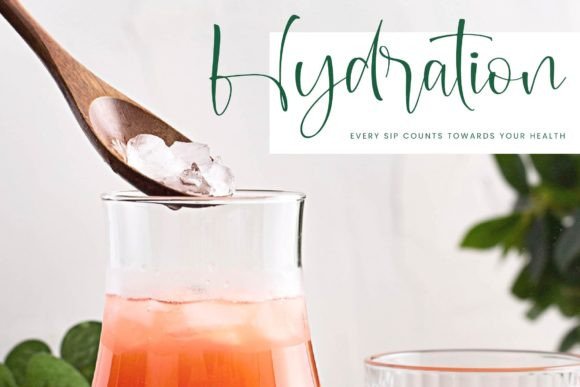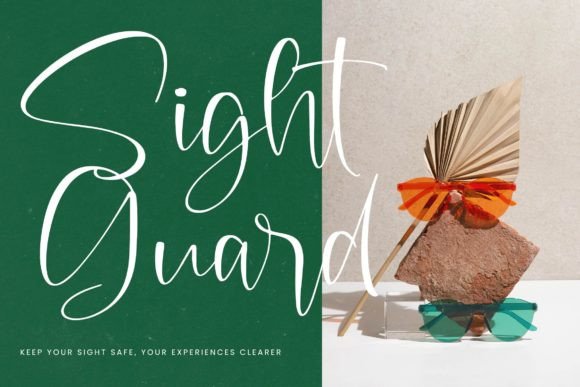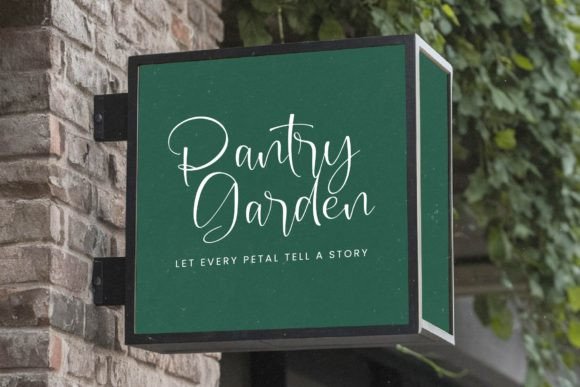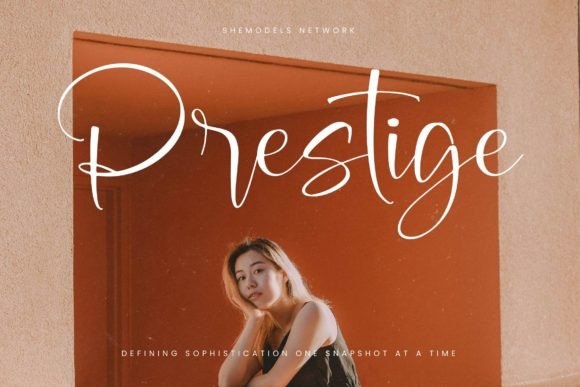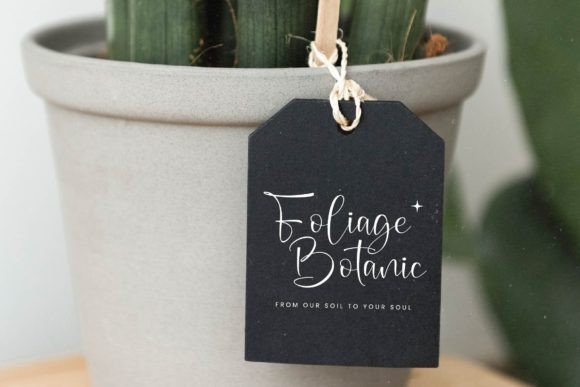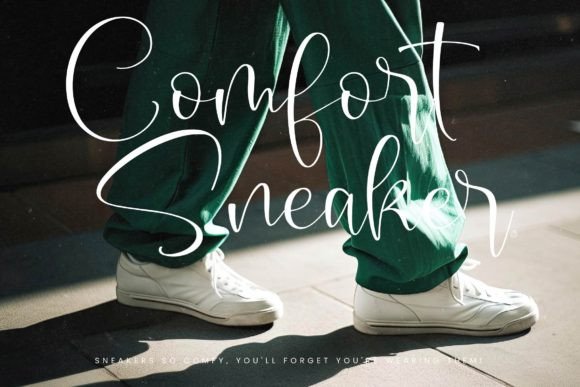
Introducing Bloming Fantasy Font: Elevate Your Designs with Elegance and Personality
In the world of typography, a well-crafted font can make all the difference in elevating your designs from ordinary to extraordinary. If you’re a designer, crafty DIY enthusiast, or simply someone who appreciates beautiful typography, you’re in for a treat. Meet Bloming Fantasy, a modern and charming handwritten font that’s poised to become your new favorite companion for creating stunning visual content.
The Essence of Bloming Fantasy
Bloming Fantasy is more than just a font; it’s an expression of elegance and personality. Its graceful, flowing strokes are meticulously designed to convey a sense of sophistication and refinement. This modern handwritten font is perfect for those who seek to add a touch of luxury and warmth to their projects. Whether you’re working on upscale invitations, personal branding materials, or chic editorial designs, Bloming Fantasy is the perfect choice to make your work stand out.
Key Features of Bloming Fantasy
- Elegant and Refined: Bloming Fantasy boasts elegant, flowing strokes that bring a level of sophistication to any project.
- Versatile: Ideal for a wide range of applications, from upscale invitations and personal branding to chic editorial designs.
- Handwritten with Personality: Adds a personal touch to your designs, making them more relatable and engaging.
- Modern yet Timeless: Bloming Fantasy strikes the perfect balance between modern charm and timeless elegance.
Applications of Bloming Fantasy
The versatility of Bloming Fantasy makes it suitable for various design projects. Here are some of the best ways to utilize this beautiful font:
Upscale Invitations
Make your invitations memorable with Bloming Fantasy. Its elegant strokes and sophisticated feel are perfect for wedding invitations, birthday parties, and other special occasions.
Personal Branding
Establish a refined and professional image with Bloming Fantasy. It’s ideal for logo design, business cards, and website headers, helping you to stand out in your industry.
Chic Editorial Designs
Blooming Fantasy adds a touch of elegance to editorial designs, including magazines, blogs, and digital publications. Its readability and charm make it a favorite among designers.
Tips for Using Bloming Fantasy
To maximize the potential of Bloming Fantasy, consider the following tips:
- Pair with Complementary Fonts: Combine Bloming Fantasy with clean, sans-serif fonts for contrast and visual interest.
- Adjust Letter Spacing: Optimize letter spacing for better readability, especially in longer texts.
- Experiment with Colors: While black and dark tones suit Bloming Fantasy well, don’t hesitate to experiment with colors that match your brand or design theme.
Bloming Fantasy is a game-changer for designers and crafters looking to infuse their projects with elegance, personality, and a modern touch. Its flowing strokes and sophisticated character make it an excellent choice for upscale invitations, personal branding, and chic editorial designs. By incorporating Bloming Fantasy into your typography arsenal, you’re not just choosing a font; you’re embracing a design philosophy that values beauty, elegance, and personal expression.
So, why wait? Elevate your designs with the refined allure and warmth of Bloming Fantasy. Explore its possibilities today and discover how this charming handwritten font can transform your projects into stunning works of art.